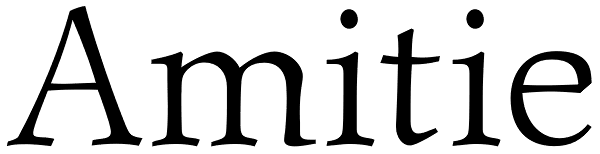
Amitié
Amitié is another typeface design by Ralph M. Unger. With its French origin already hinted at in the name, Amitié comes across as friendly and lively. This design reflects Unger’s interest and love in classical, expressive type with the right sense...
Amitie Italic
Amitie